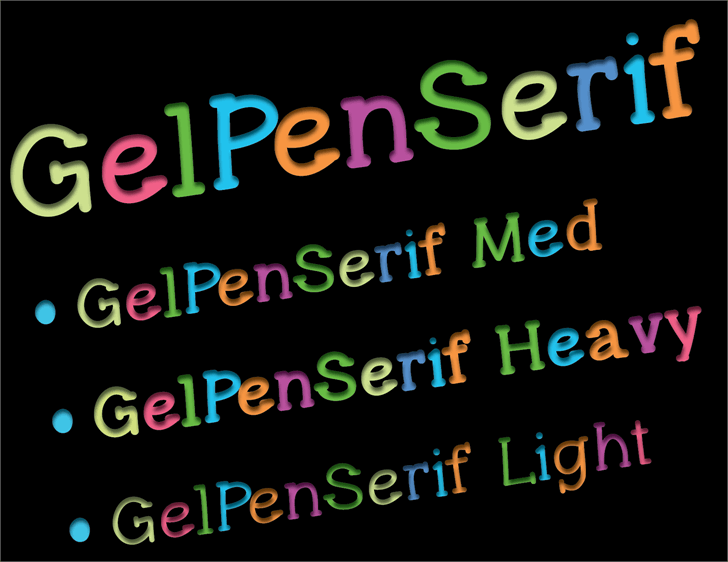
Free GelPenSerif Font
Take a look at this eye-watering free gelpenserif font. Font Space has created this amazing and beautiful typeface. Easily amaze your audience with this cool font and make your graphic designs pop up from the crowd.